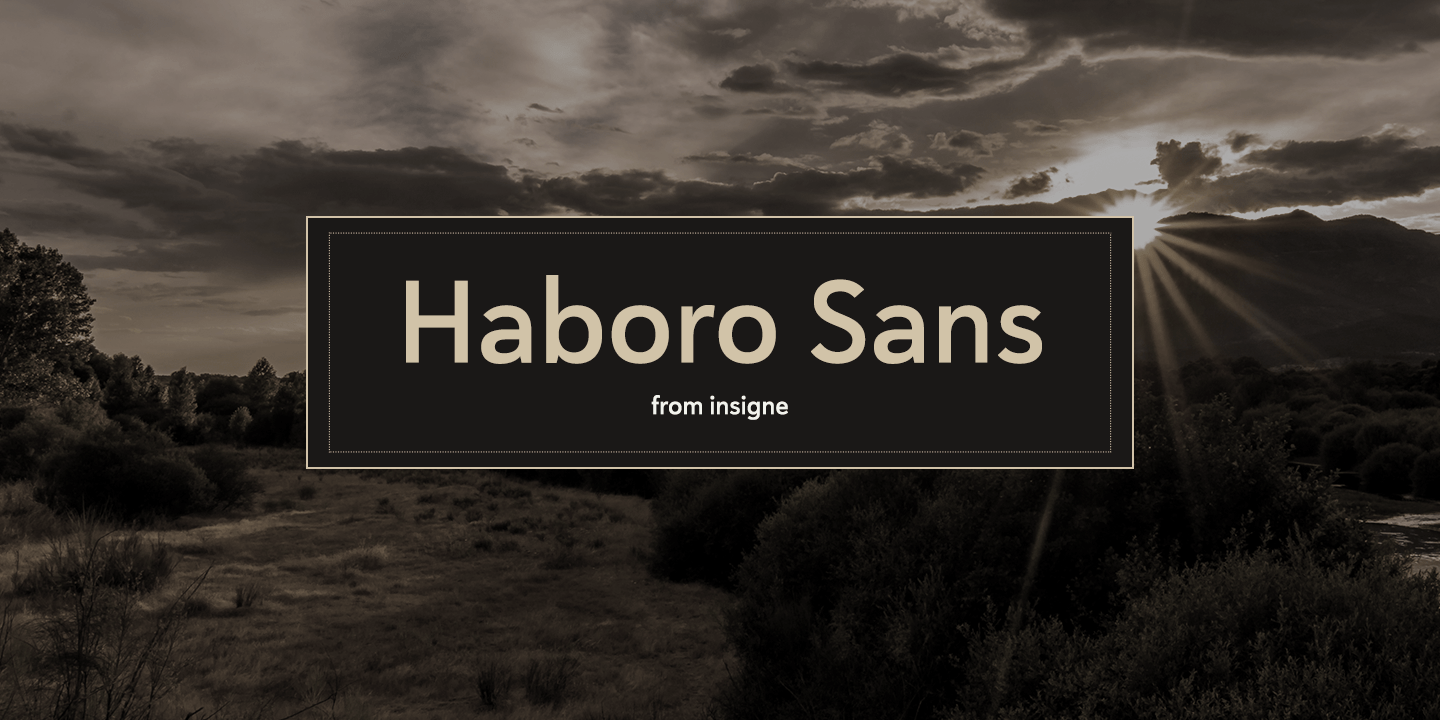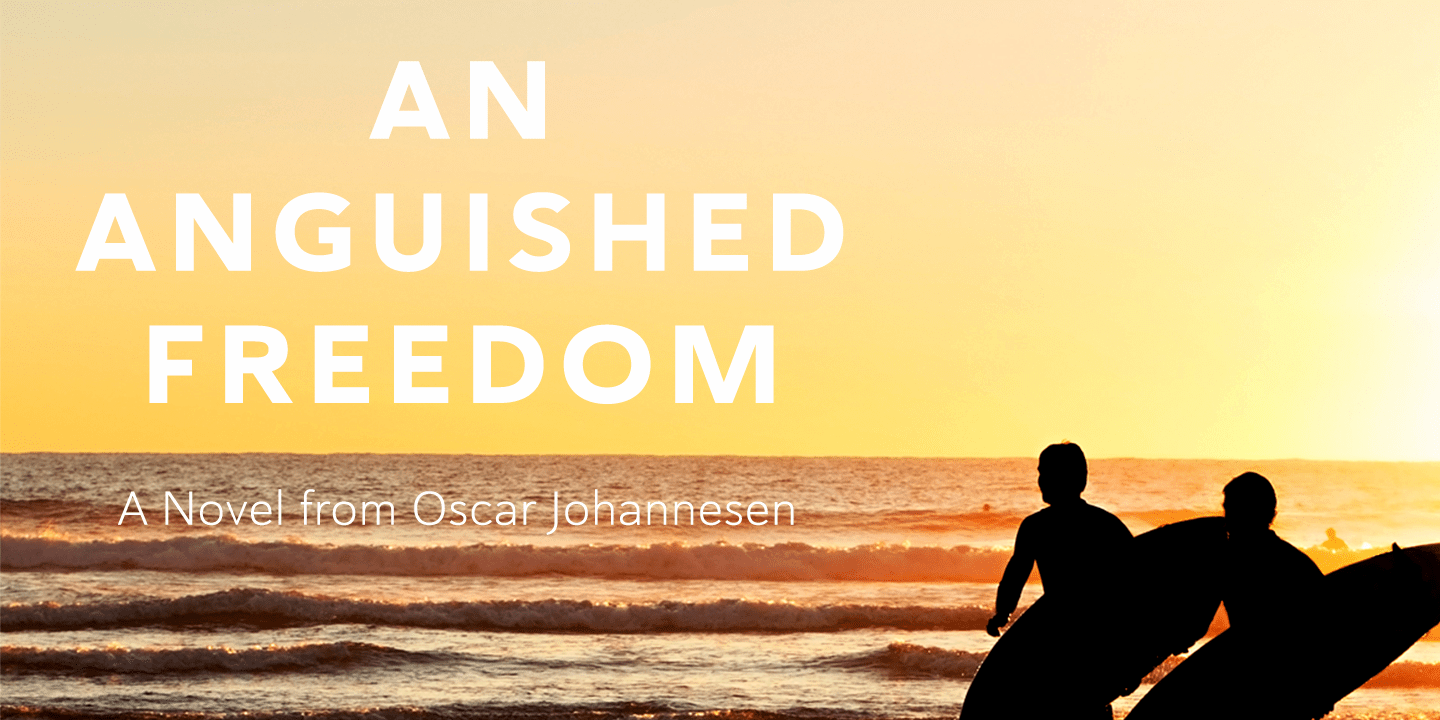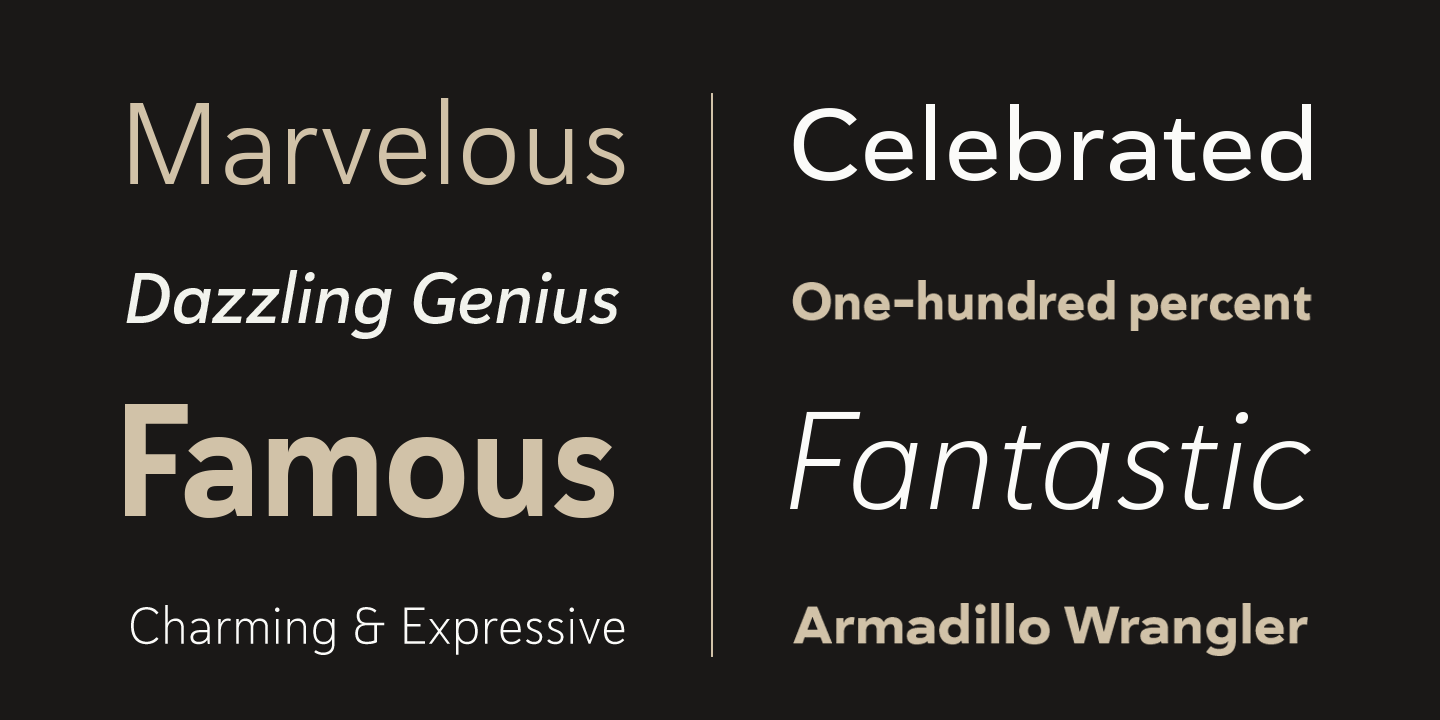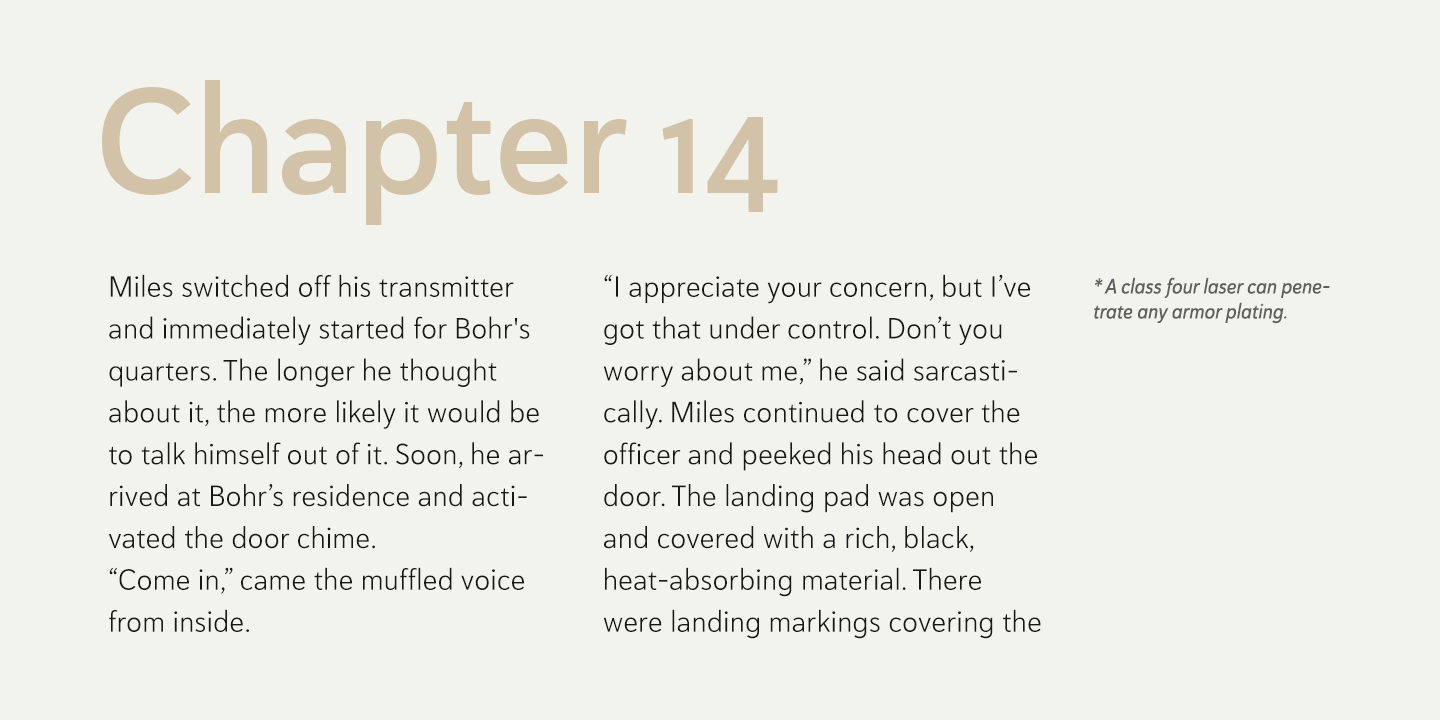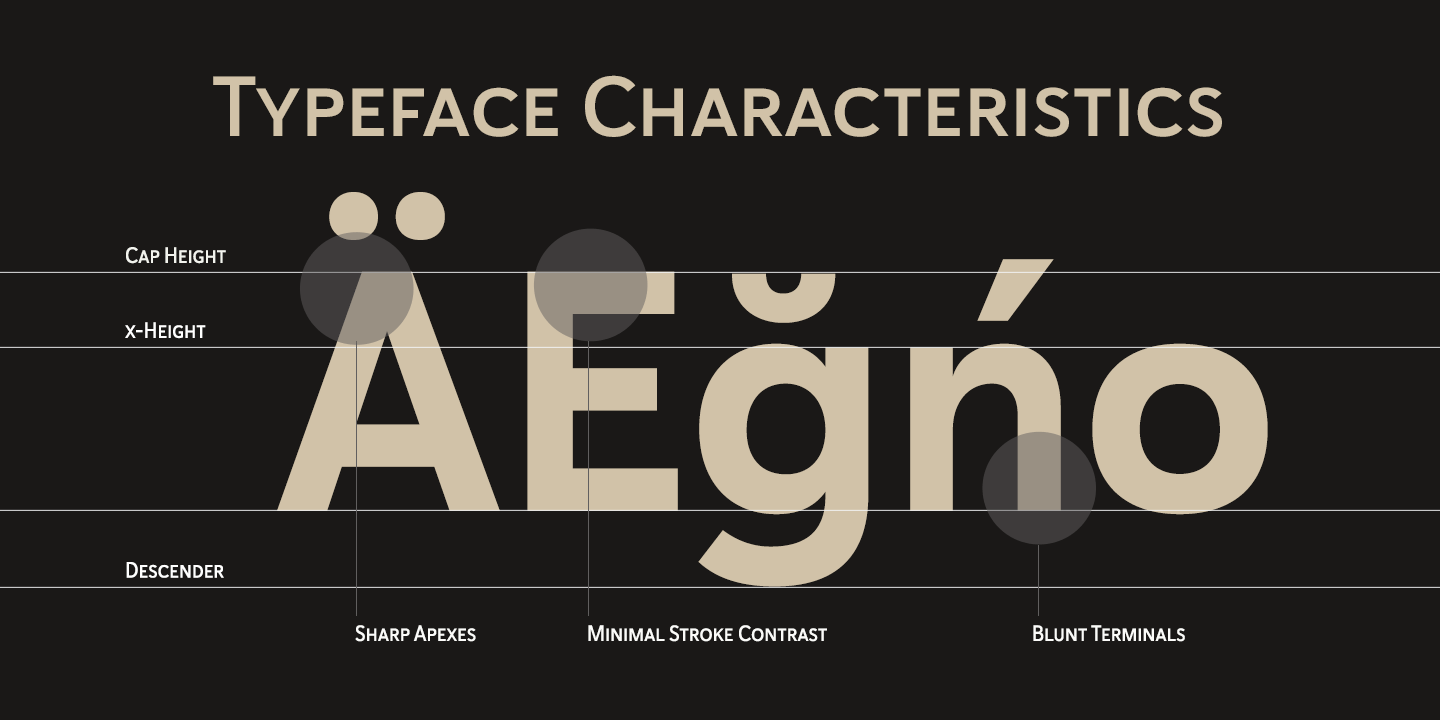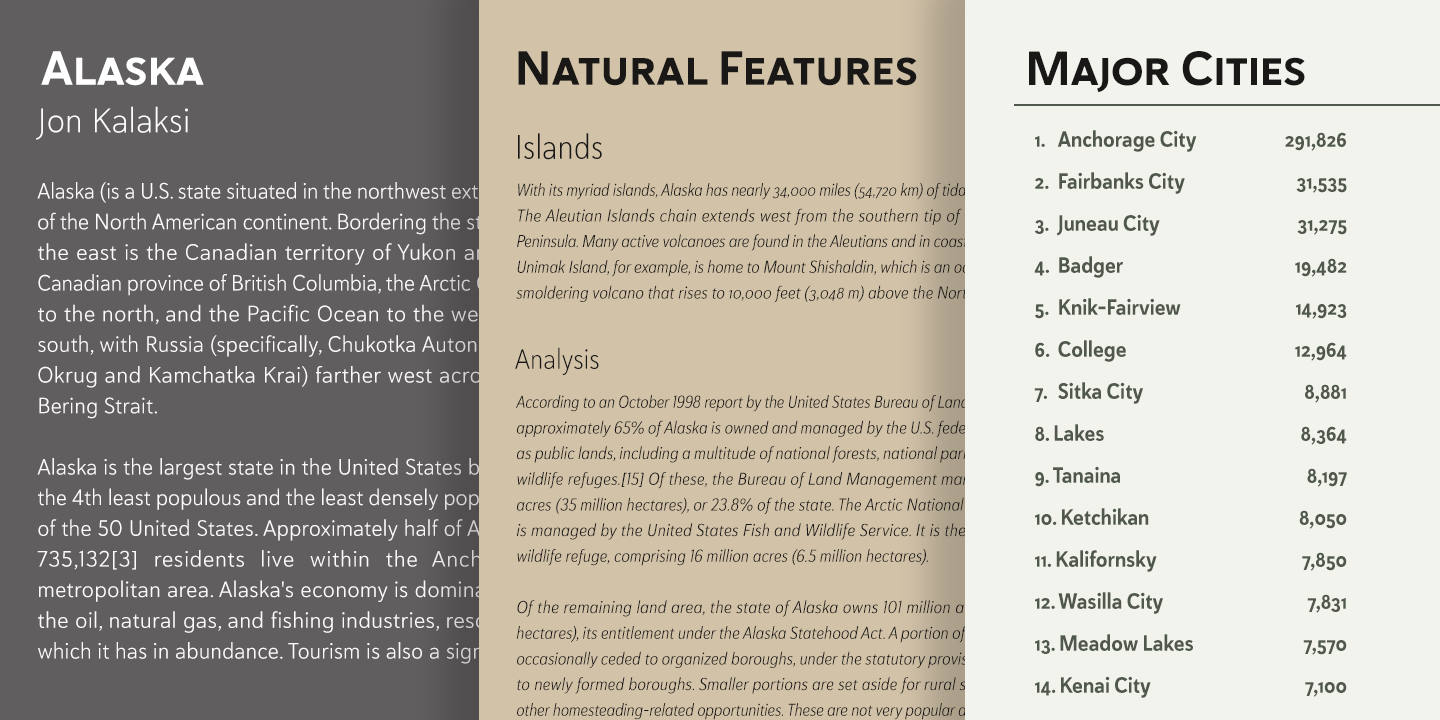
Haboro Sans
Font Family by Insigne
Quit trudging through the thick with encumbering fonts, and spring to the front of the pack with the cutting edge sans serif, Haboro Sans. With nothing to clutter up your work, your editorial designs, websites, and software will be sharp and clear.
While this hyperfamily is simple in character, it (like Haboro Slab and Haboro as well) provides you with plenty of options. Haboro Sans features simple geometric shapes to help you achieve that perfect effect wherever you use it. Enjoy the comforting reassurance that this multi-tool of a typeface family can work on most anything, including packaging, branding, web copy, and more.
Take the simplicity of Haboro Sans a step farther with OpenType features, too. Haboro Sans contains special glyphs like Titling, Small Caps and Oldstyle figures that give your work just enough of a distinct touch. For even more options, use the entire Haboro family to expand your capabilities.
Put some simple class into your projects with the traditional look of Haboro Sans. Your layouts, websites, iPhone apps, advertising, and newspapers (to name just a few) will thank you.